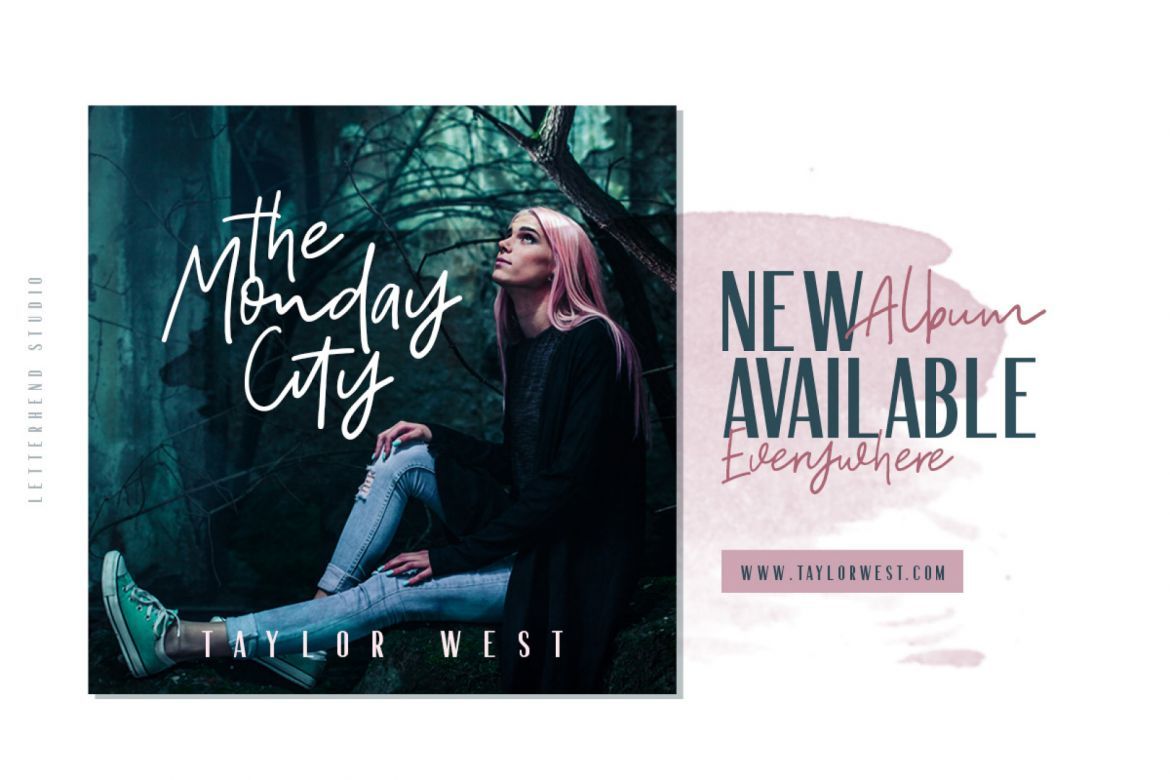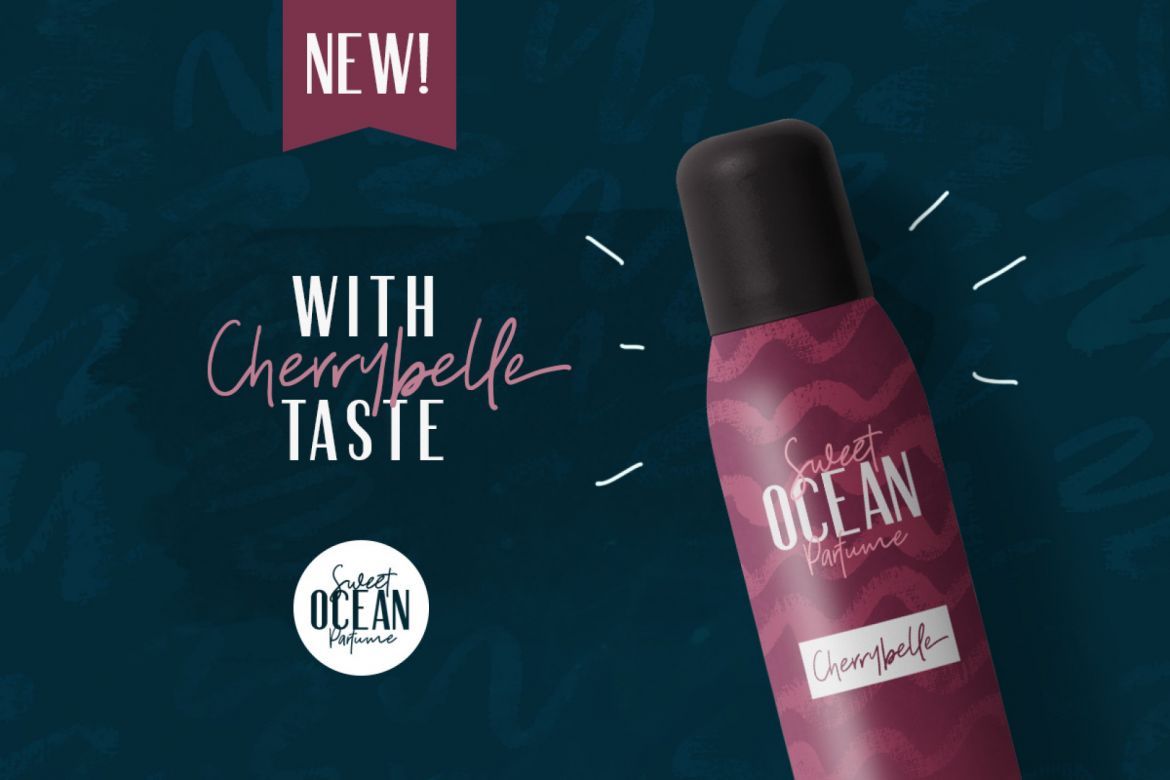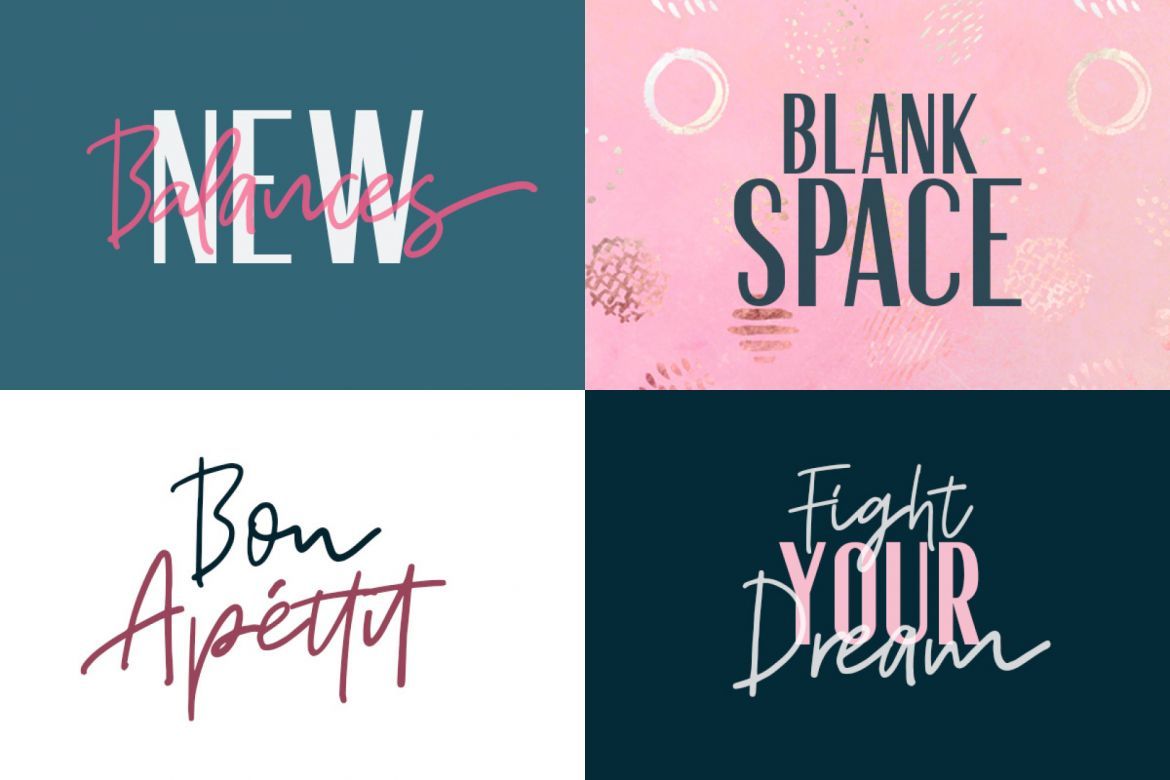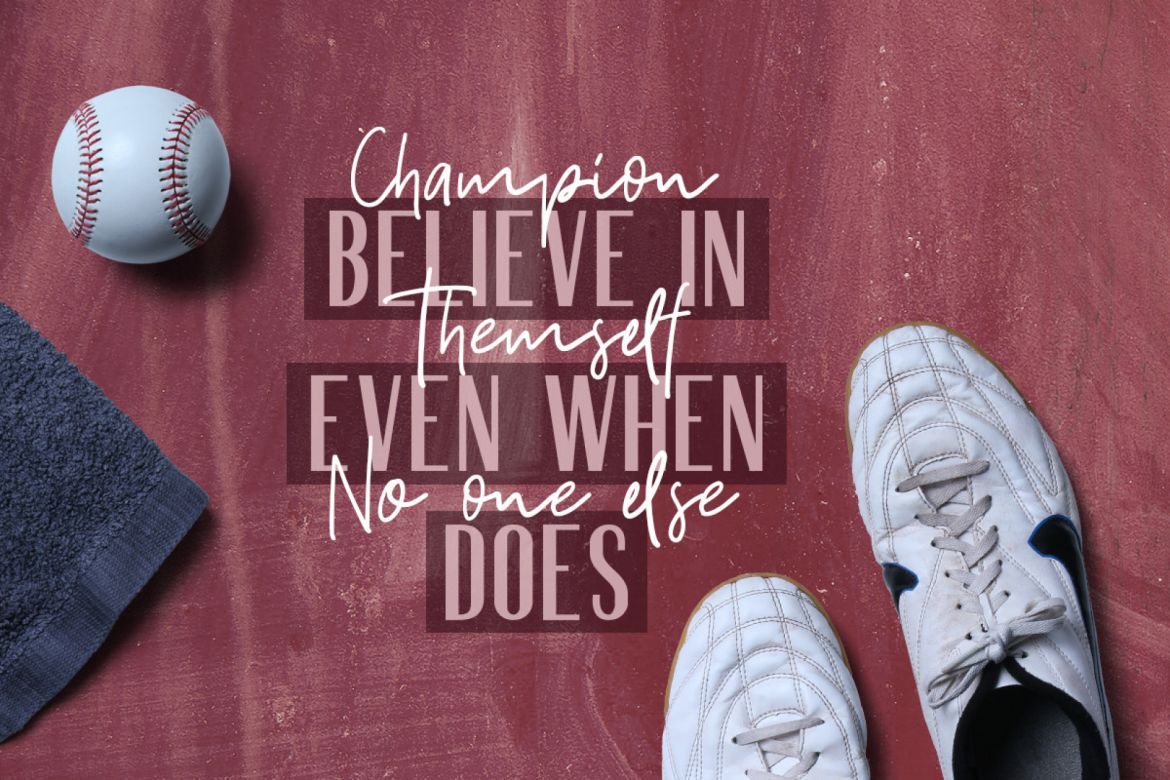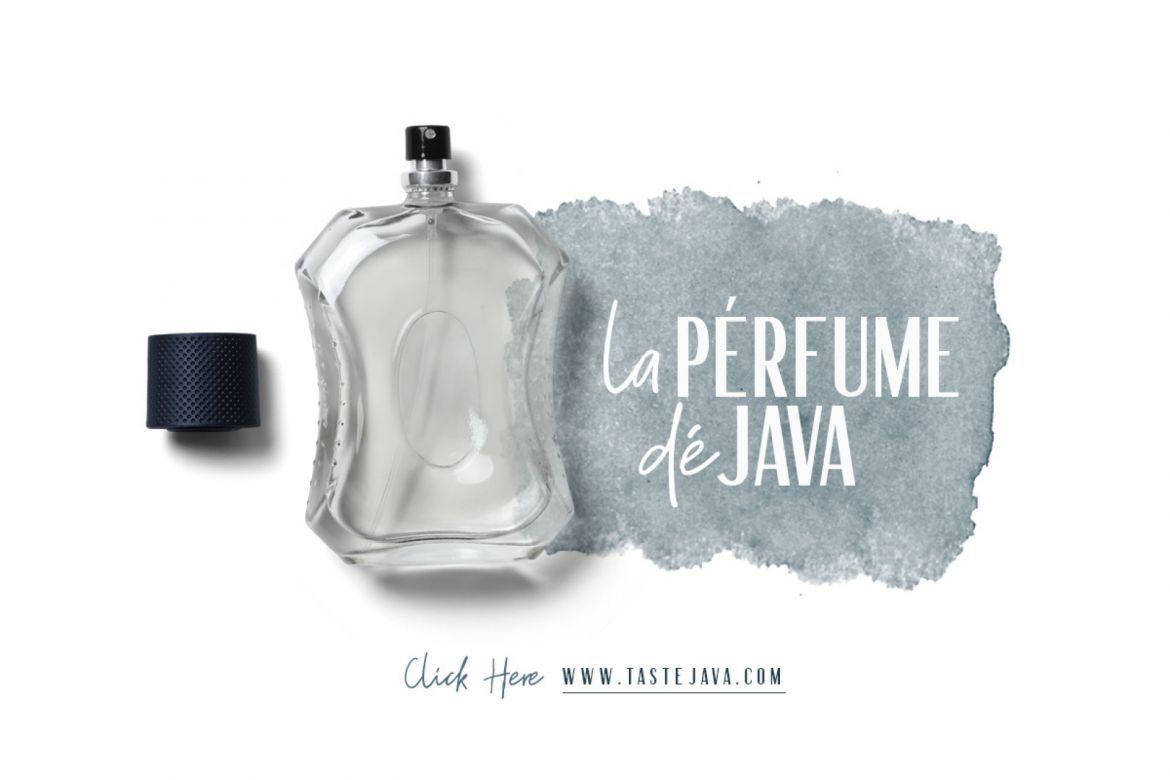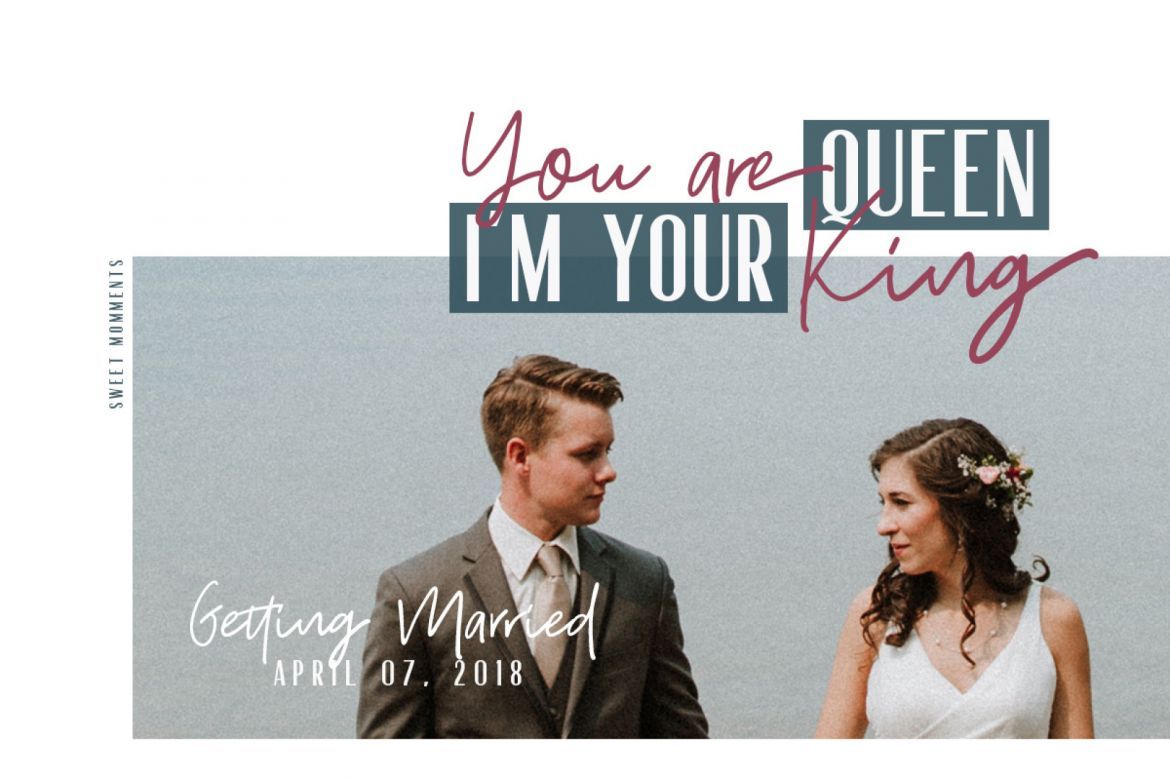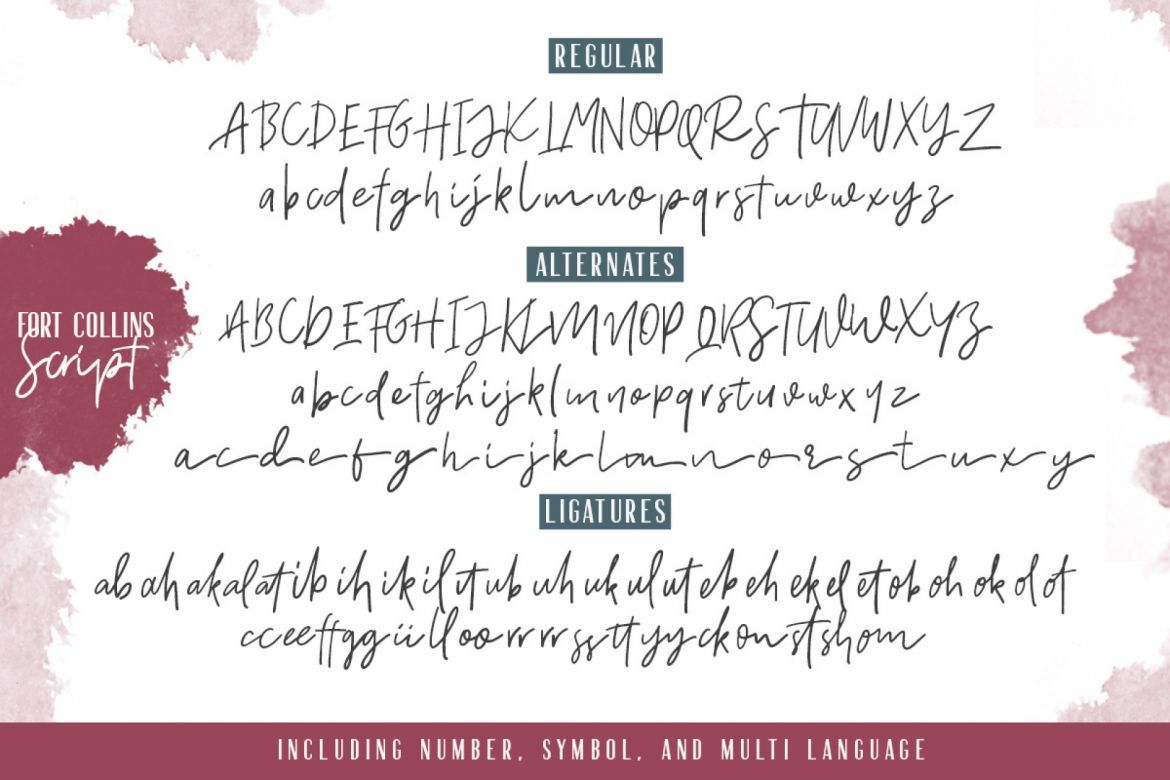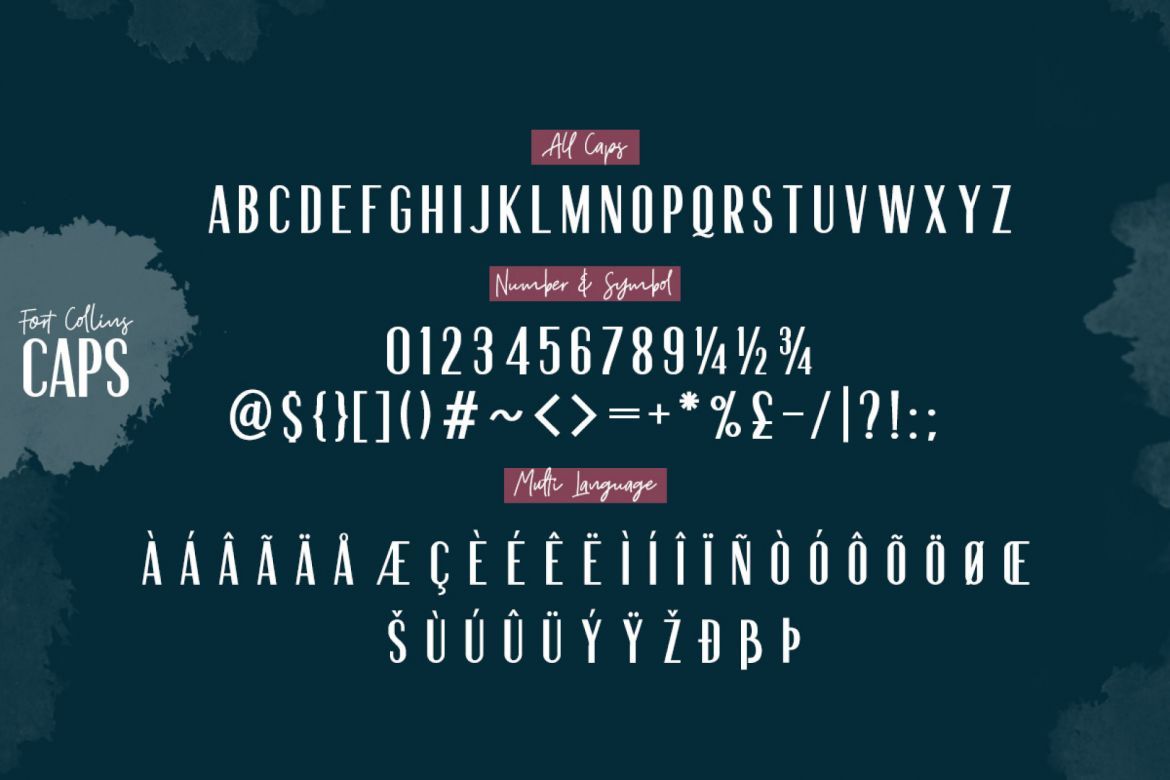
Fort Collins Font Duo
• suitable for those of you who need fonts for titles, logos, clothing, invitations, branding, packaging, advertisements, etc.
• supports multilingual.